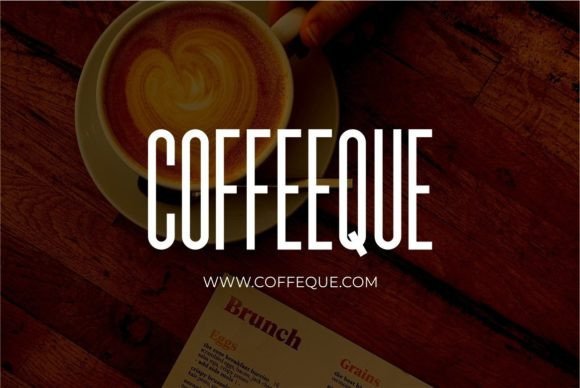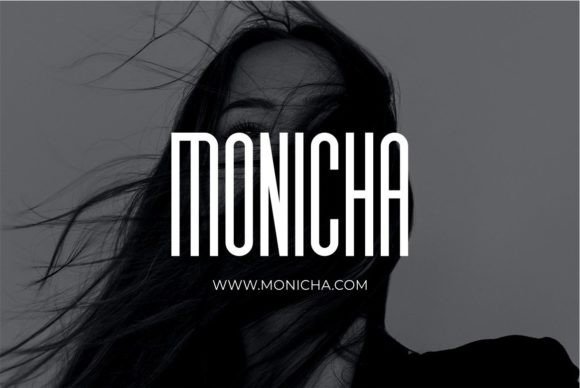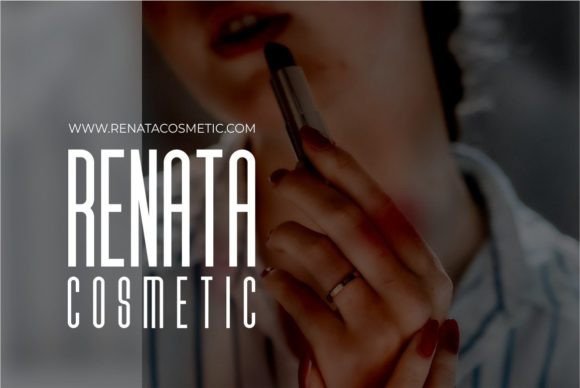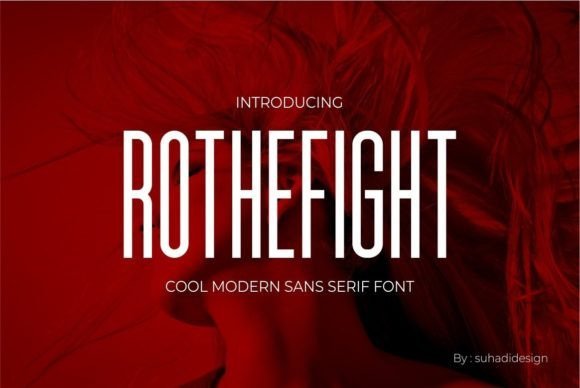
Introduction to Rothefight Font
The Rothefight is a modern sans serif font that is very popular and comes in a modern style hoping to become a favorite with the market.
Rothefight Font is a great choice for brands, company names, fashion, logos, food menus, brand names, branding, brands, quotes, album covers, and other projects Rothefight fonts are here to take your designs to the next level.
Rothefight Font offers exceptional quality and versatility, making it a valuable addition to your design toolkit. Whether you’re creating for personal projects or commercial use, Rothefight Font delivers professional results.